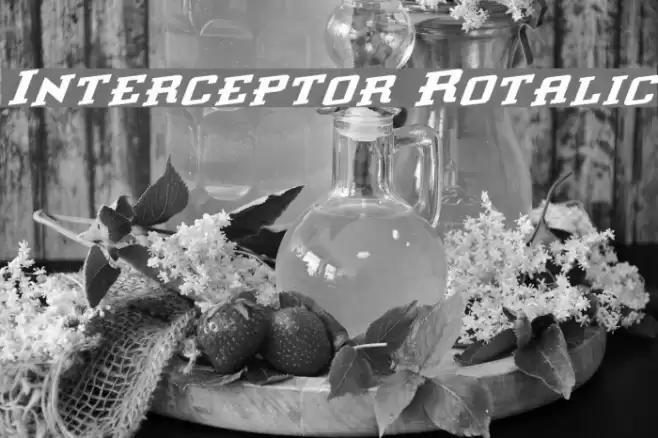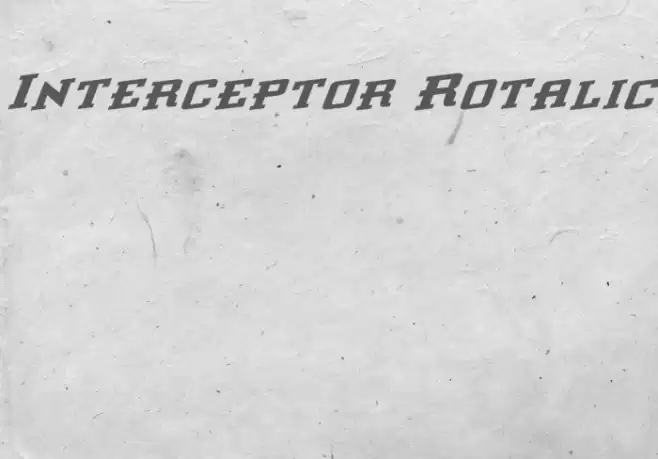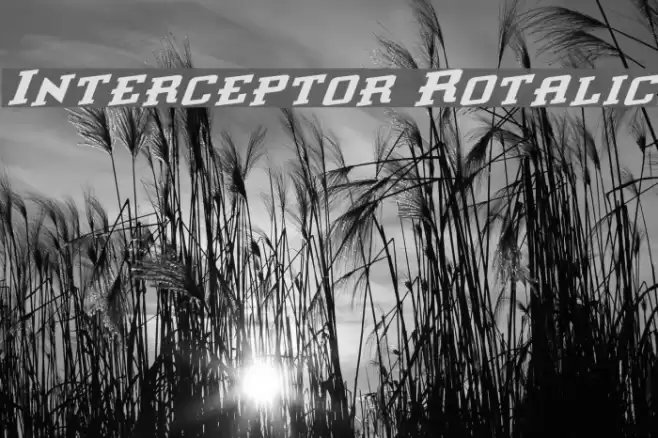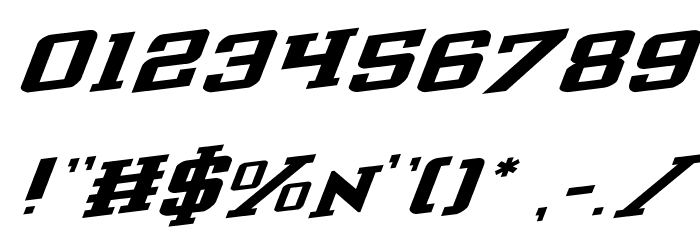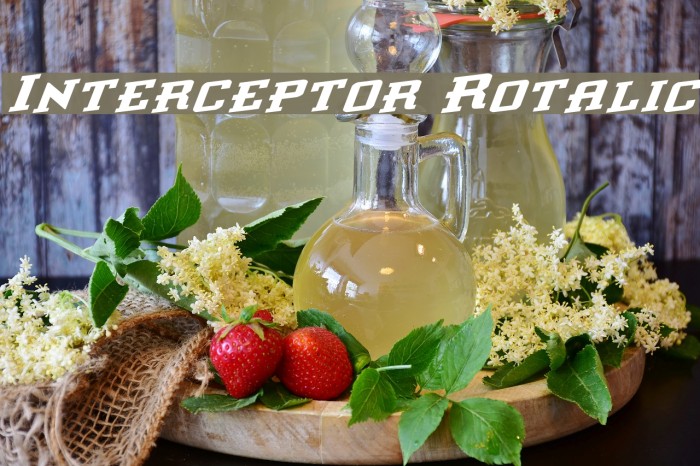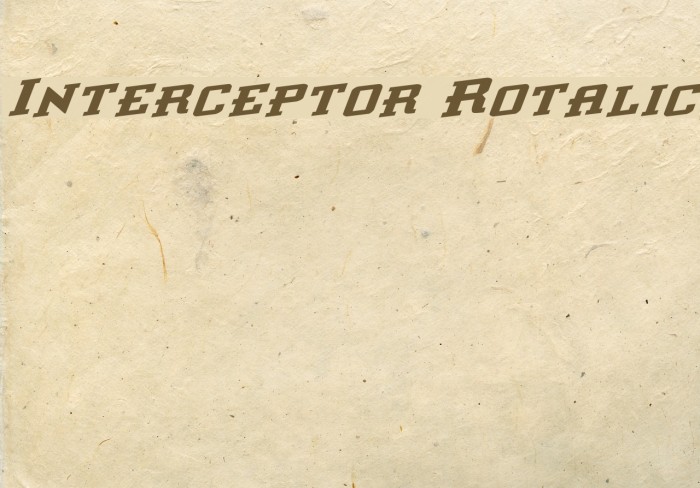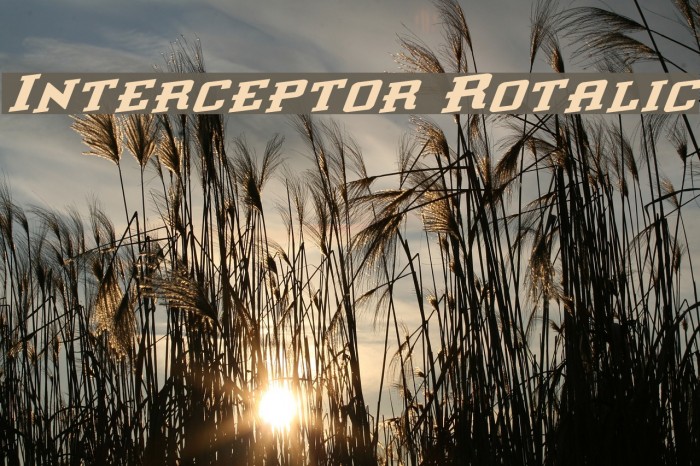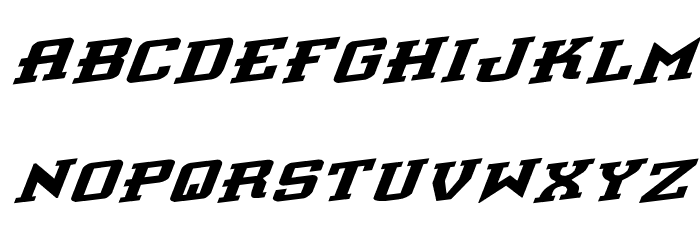
Interceptor Rotalic Font
Interceptor Rotalic Description
This font features a bold and dynamic style with a strong italic slant, giving it a sense of motion and energy. The characters are sharply defined with angular edges and a geometric structure, creating a modern and aggressive appearance. The uppercase and lowercase letters maintain a consistent style, with the uppercase being slightly more pronounced. Numbers and special characters are designed to match the bold and assertive look of the alphabet. The overall design is suitable for projects that require a strong visual impact.
A bold, italicized font with angular, geometric characters from Uncategorized fonts.
- Proposed Projects: Ideal for sports branding, automotive designs, dynamic posters, and action-themed graphics.